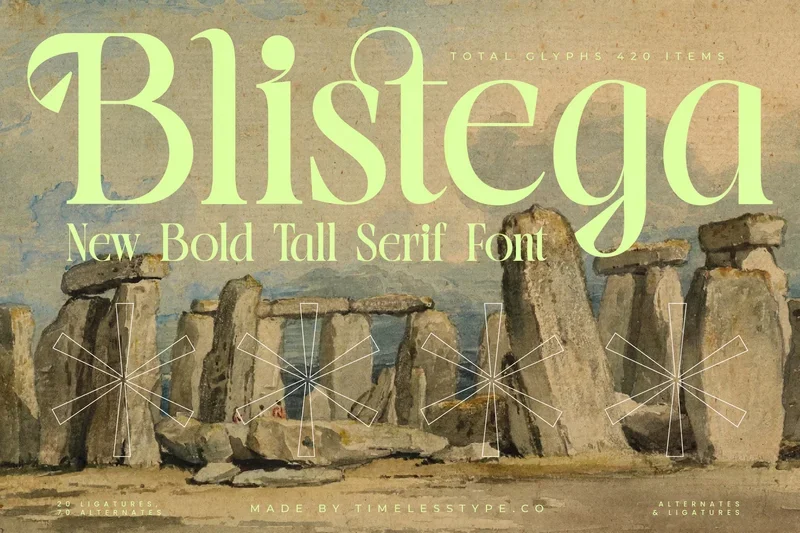
Blistega – New Bold Tall Serif Font
Blistega is a bold tall serif font that combines modern refinement with a strong, confident presence. Its elongated letterforms and elegant ligatures create a sophisticated yet contemporary look, making it perfect for branding, editorial layouts, fashion magazines, packaging, and striking logos. With its balance of timeless elegance and bold expression, Blistega is designed to elevate any creative project with style and authority.